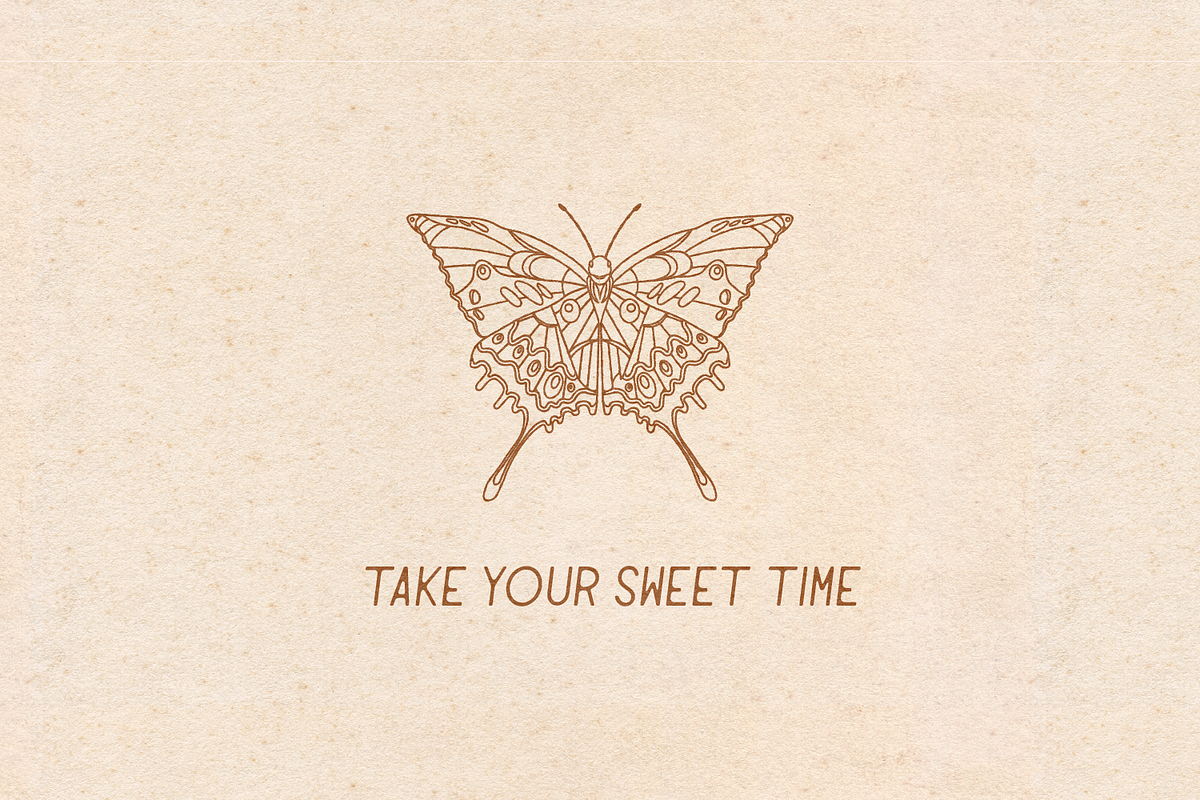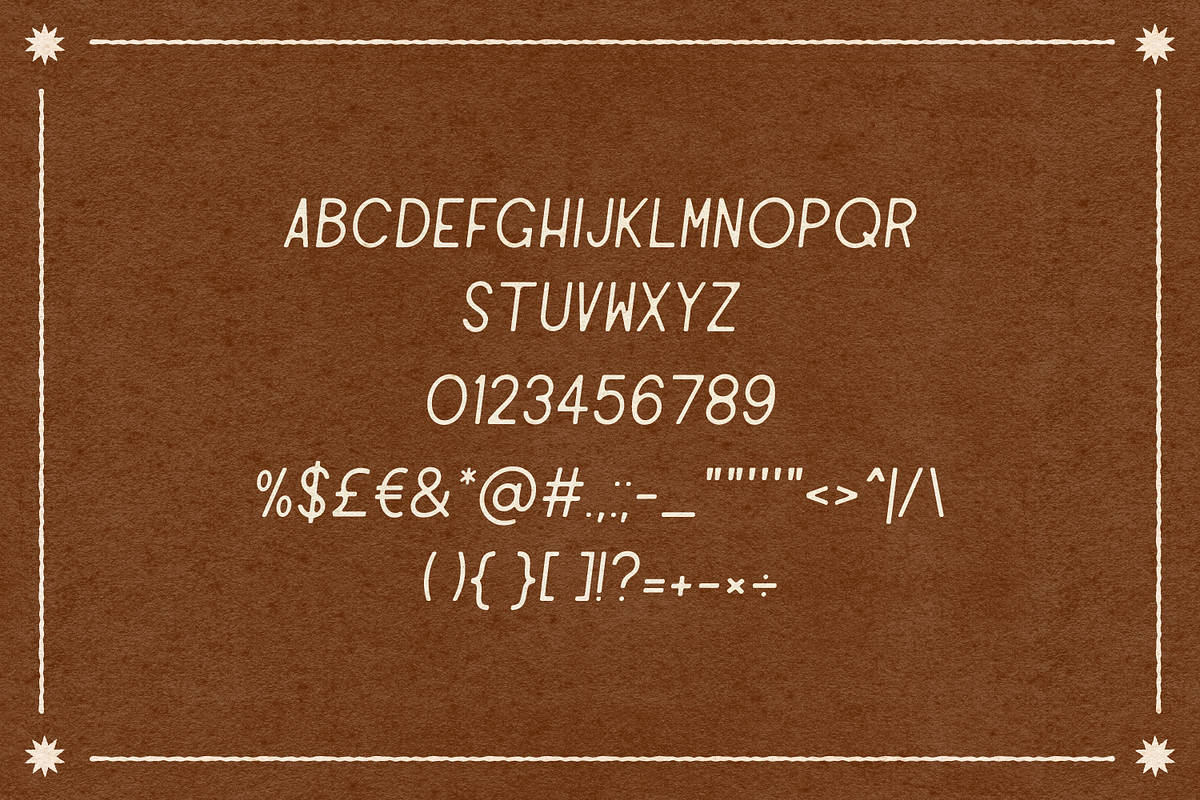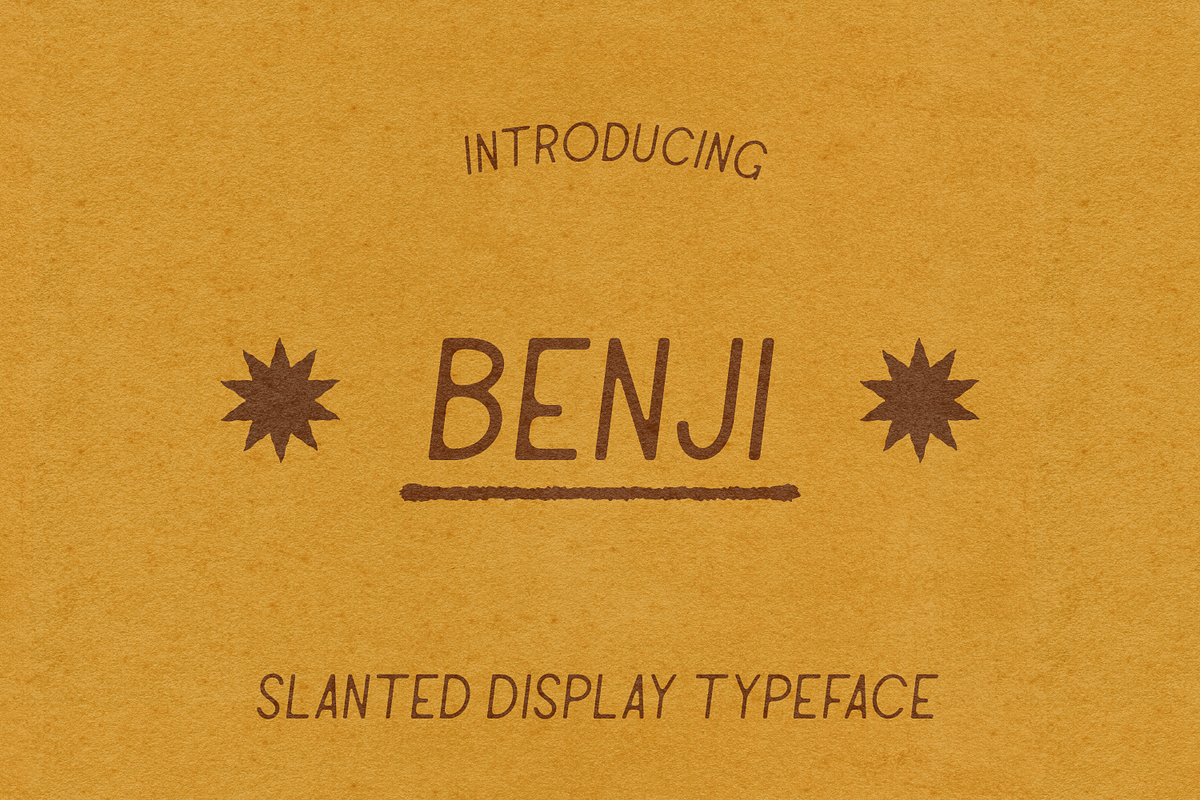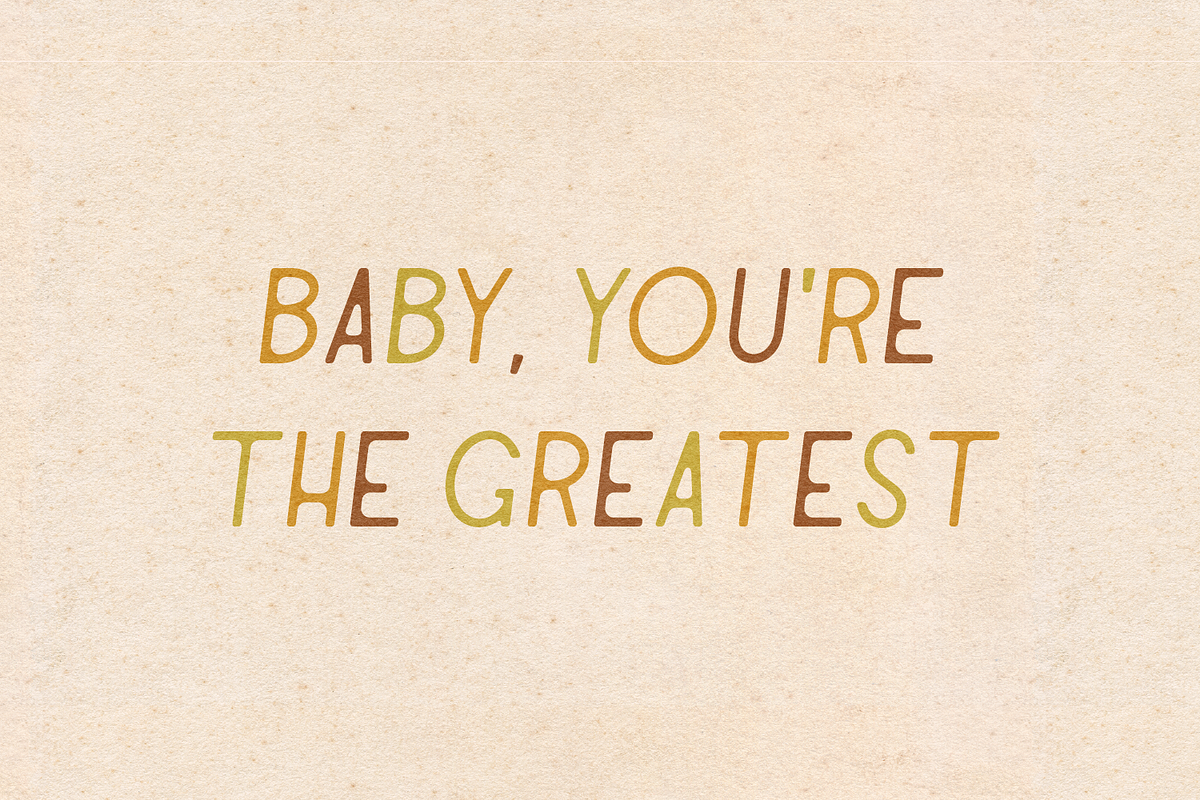
Benji | Slanted Sans Serif Typeface
'Benji' is a slanted sans serif display typeface with a lot of personality.
- capitals A-Z
- numbers 0-9
- a range of punctuation and special characters